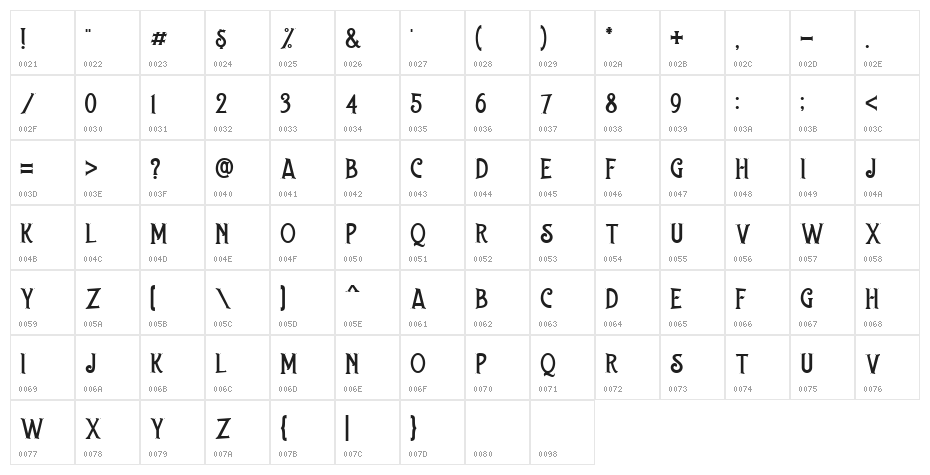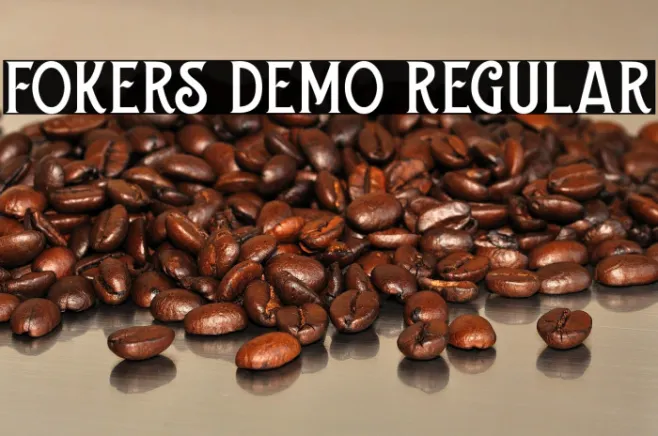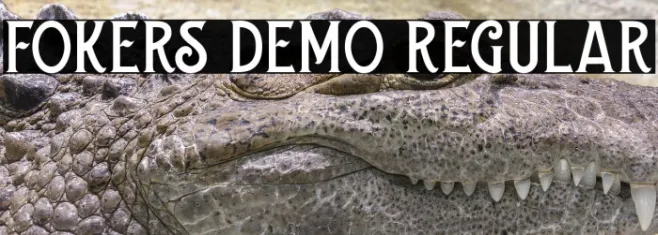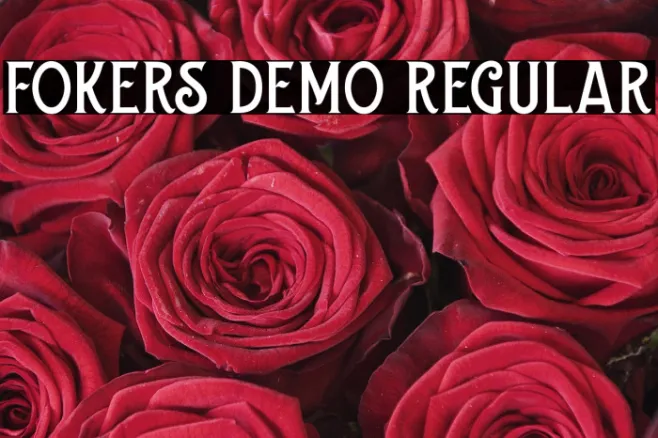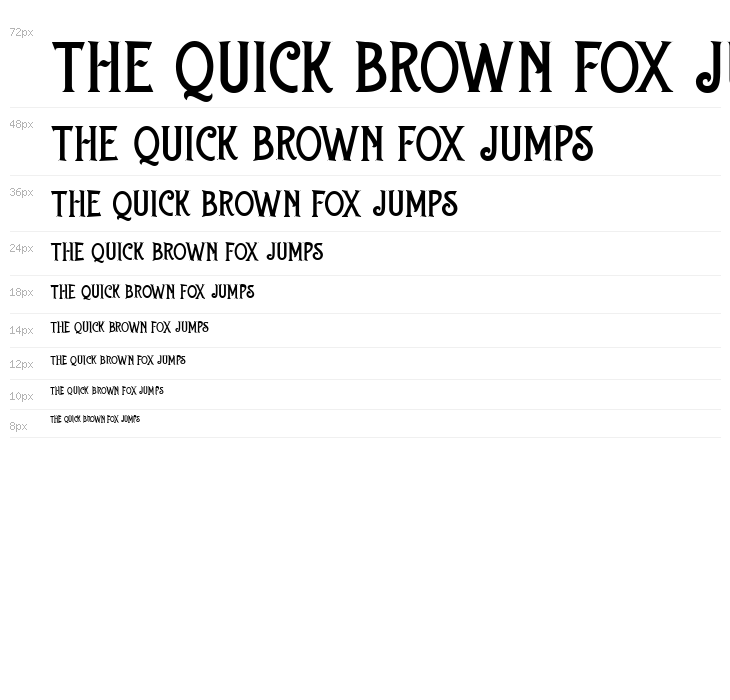
Fokers DEMO Regular Font
Fokers DEMO Regular Description
This font features a distinctive and elegant style with a classic serif design. The characters have a unique flair, with subtle curves and sharp edges that add a touch of sophistication. The uppercase letters are bold and commanding, while the lowercase letters maintain a consistent and harmonious flow. The numbers are clear and well-defined, making them easily readable. Special characters are crafted with attention to detail, enhancing the overall aesthetic. This font is versatile, suitable for a range of design projects that require a touch of elegance and tradition.
| Proposed Projects | Ideal for branding, editorial design, invitations, and formal documents. |